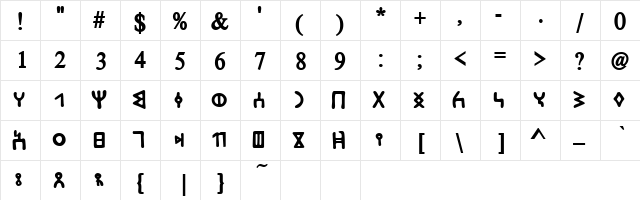
SouthArabianSSK Bold
Design Context for SouthArabianSSK Typeface
SouthArabianSSK takes a measured approach to typography — its balanced proportions and neutral character make it a reliable workhorse for both digital and print work. The heavy weight commands attention and anchors typographic hierarchies.